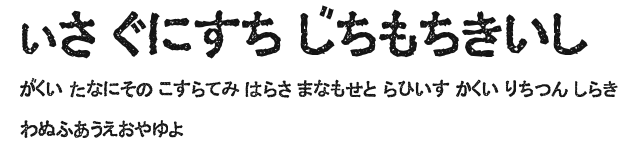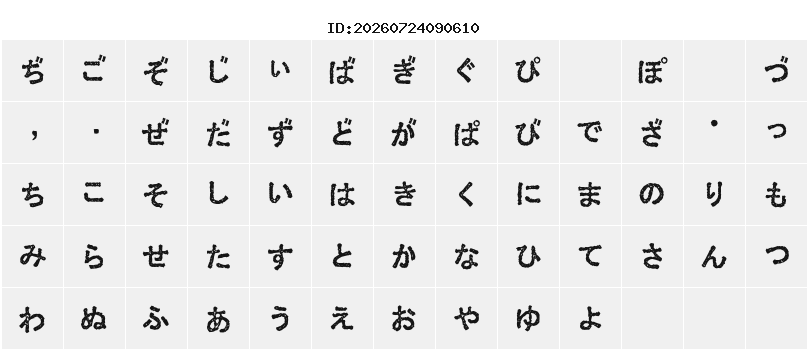
• Font Name: Ex Hira Damaged
About Ex Hira Damaged.ttf
Ex Hira Damaged.ttf is a modern, elegant sans-serif font designed for ultimate readability and visual harmony. Perfect for branding, headlines, web design, and print materials.